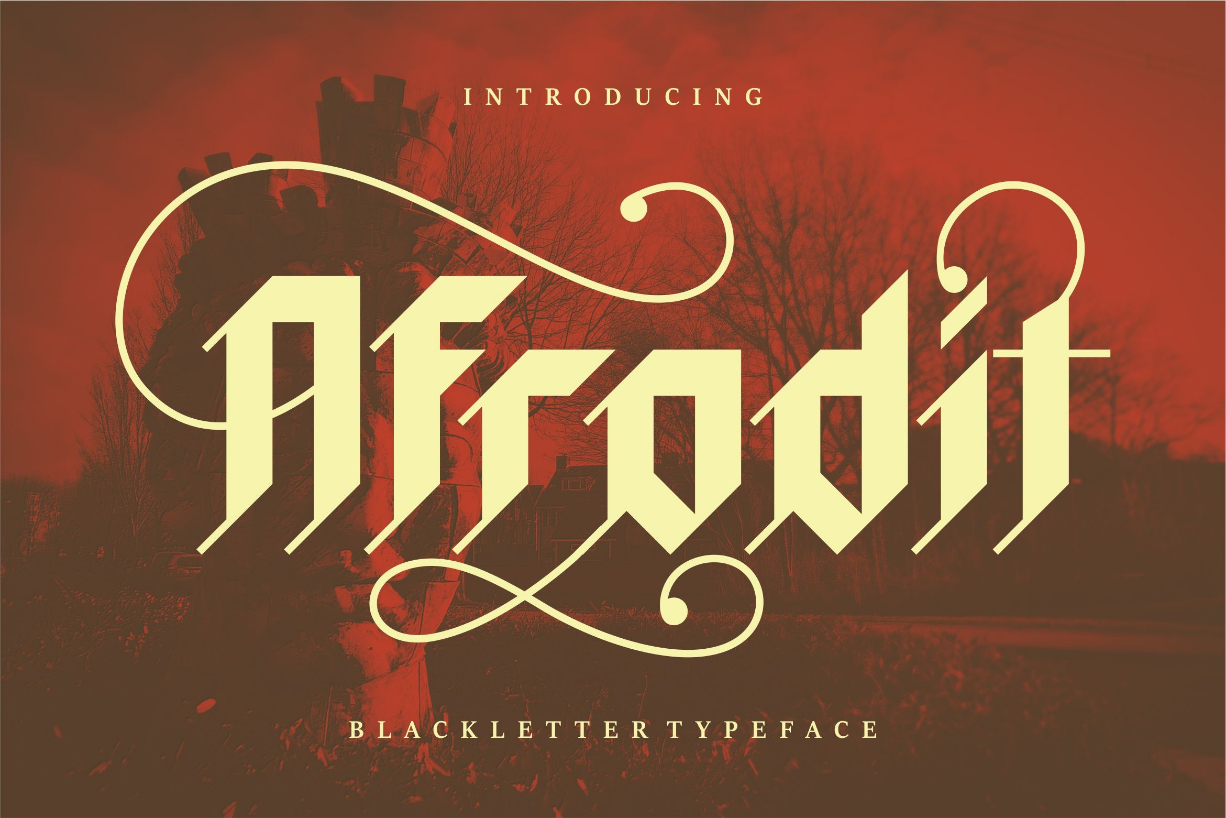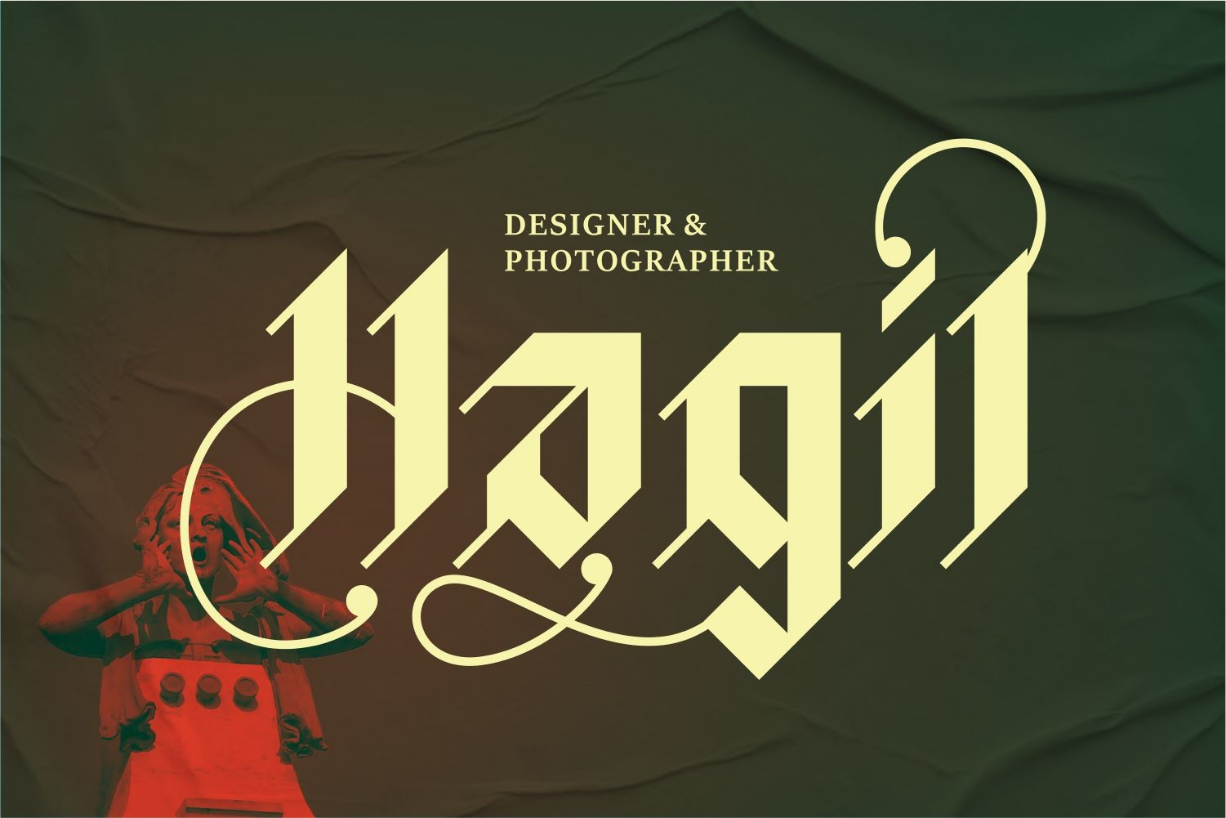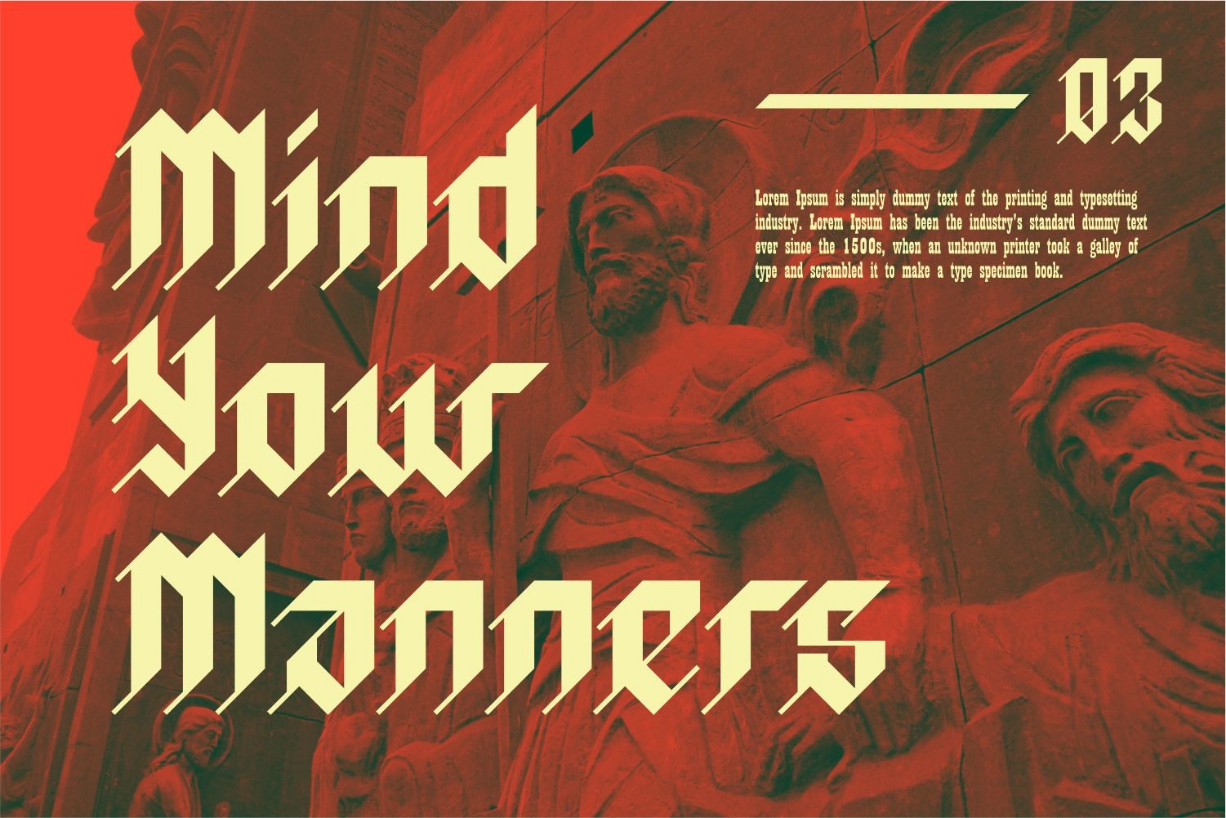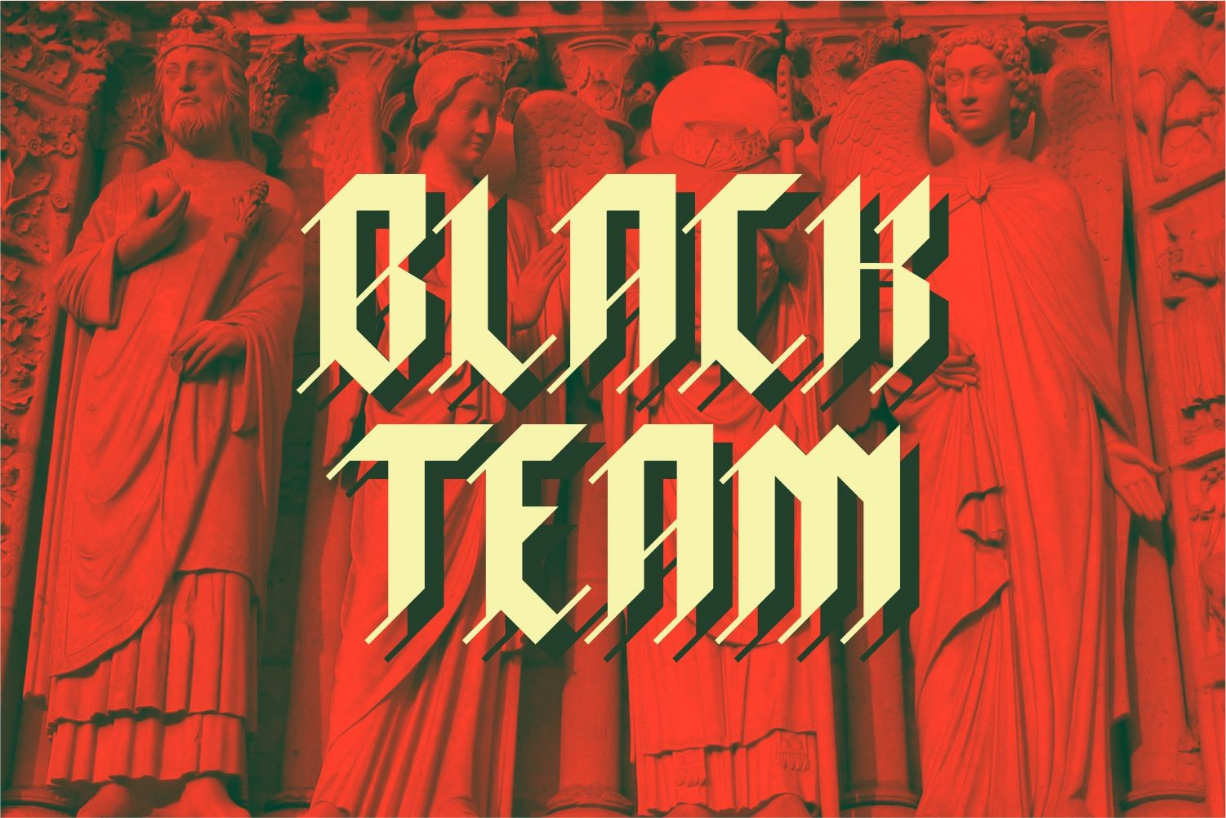
About Afrodit Font
Afrodit is a cool and bold blackletter font that exudes strength and sophistication. Its sleek and angular design features sharp serifs and clean lines, creating a sense of power and elegance. The letters are tightly spaced, producing a sense of density and intensity. This font is perfect for projects that require a touch of boldness and class, such as branding, editorial design, or signage. With Afrodit, you can add a touch of edgy style and make a statement that demands attention.